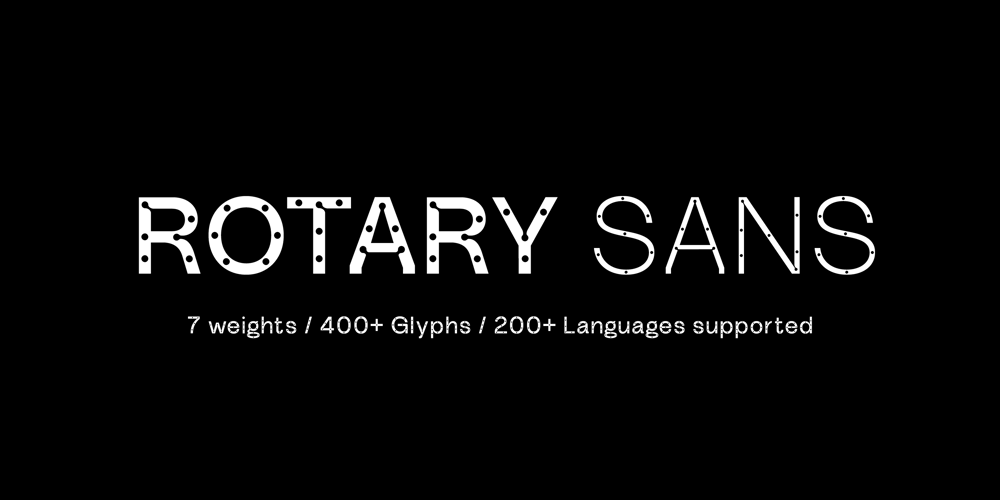
Rotary Sans Font Family was designed by Paul Henry Robb and published by S6 Foundry. Rotary Sans contains 7 styles and family package options. Rotary Sans is a contemporary Opentype sans serif typeface with strong geometric contrasts and pear drop-shaped ink traps. All styles have an extended Latin glyph set with alternatives and ligatures. The distinctive wide-open stance was designed to give the right visual consistency for branding and communications. Rotary Sans is perfectly suited for headlines, large-format prints, brand identities, social media, advertising, editorial design, posters, magazines, logos, headings, and more.